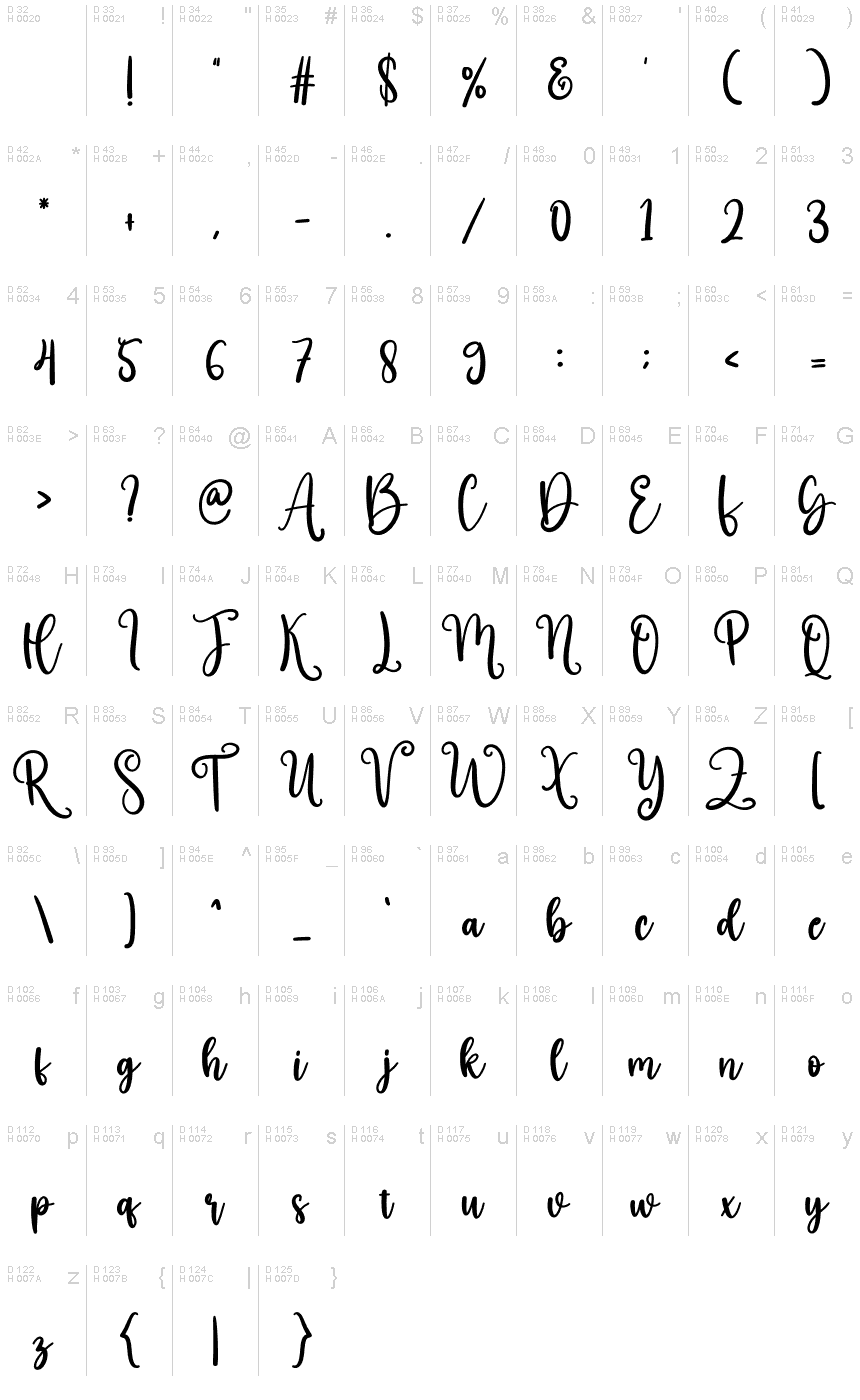
Christmas Snowfall
font with a touch of whimsyFont type: script fontChristmas Snowfall, the beautifully handwritten script font by scratchones, is the perfect addition to your holiday projects. With a touch of whimsy and an elegant flow, this font captures the magic of the season. Its semi-bold width adds emphasis to important words and phrases, making it great for card designs, invitations, and social media posts. Whether you're creating a festive flyer or adding some flair to your blog posts, Christmas Snowfall will bring joy and warmth to any project. Spread some holiday cheer with this delightful script font!
the latest style letters are perfect for wall displays, wedding invitations, social media post logos, advertisements, product packaging, product designs, labels, photography, watermarks, invitations, stationery, and any project that requires taste handwriting.